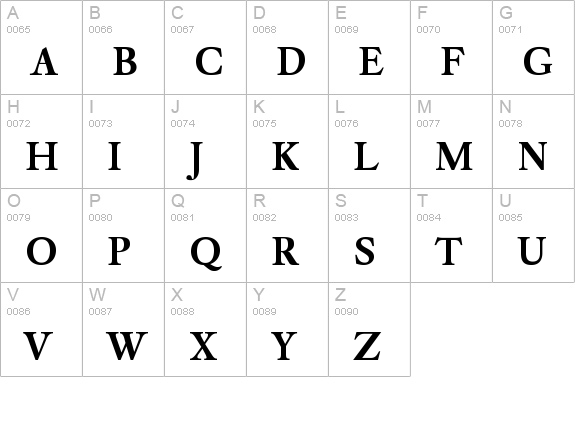
DTLElzevirTCaps-Bold is a strong, high-contrast variant in the DTLElzevirTCaps typeface family \xE2\x80\x94 well suited to headlines, attention-grabbing titles, and strong calls-to-action.
The DTLElzevirTCaps-Bold font is a striking and bold typeface that exudes a sense of strength and modernity. With its clean lines and sharp edges, this font is perfect for making a statement in any design project. Whether you're creating logos, headlines, or branding materials, DTLElzevirTCaps-Bold is sure to capture attention and leave a lasting impression. What's even better is that this font is available for free download at FontsMarket.com. That's right, you can easily access and use this powerful font in your projects without any cost. So why wait? Head over to FontsMarket.com now and elevate your designs with the impactful DTLElzevirTCaps-Bold font.